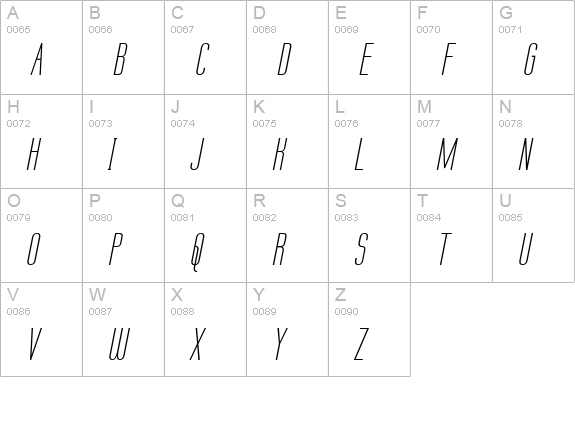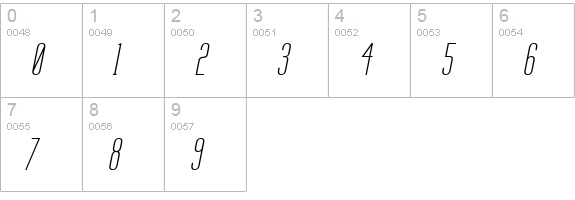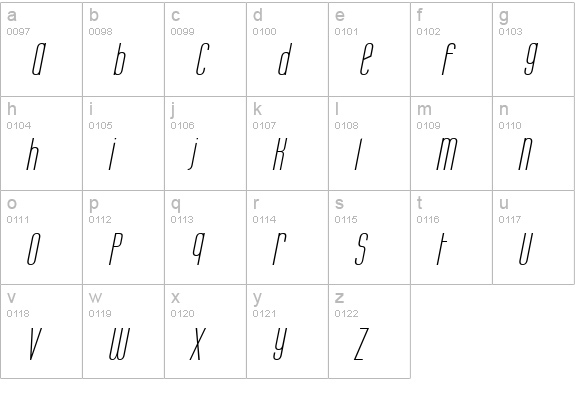
Labtop Unicase Italic is a distinctive, italic variant in the Labtop typeface family \xE2\x80\x94 well suited to design and typography projects.
Labtop Unicase Italic font is a sleek and modern typeface that exudes sophistication and style. Its unique italic design adds a touch of elegance to any project, making it perfect for use in branding, advertising, and graphic design. The clean lines and smooth curves of Labtop Unicase Italic font make it a versatile choice for both digital and print applications. One of the best features of Labtop Unicase Italic font is that it is available for free download at FontsMarket.com. This means that you can easily access this high-quality font without any cost, allowing you to enhance your designs without breaking the bank. Whether you're working on a professional project or a personal creative endeavor, Labtop Unicase Italic font is sure to make a lasting impression. Don't miss out on the opportunity to elevate your designs with Labtop Unicase Italic font. Download it for free today at FontsMarket.com and see how this stylish typeface can take your work to the next level.